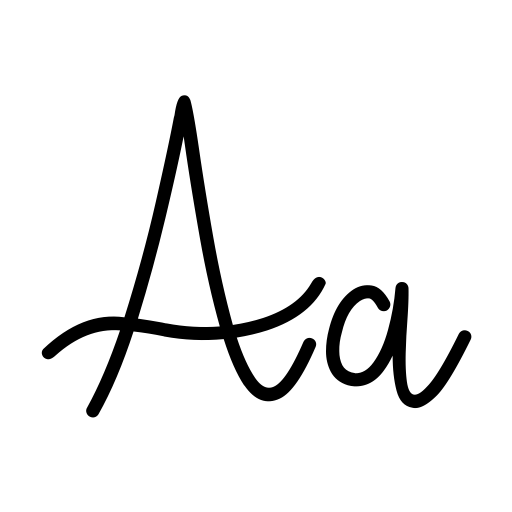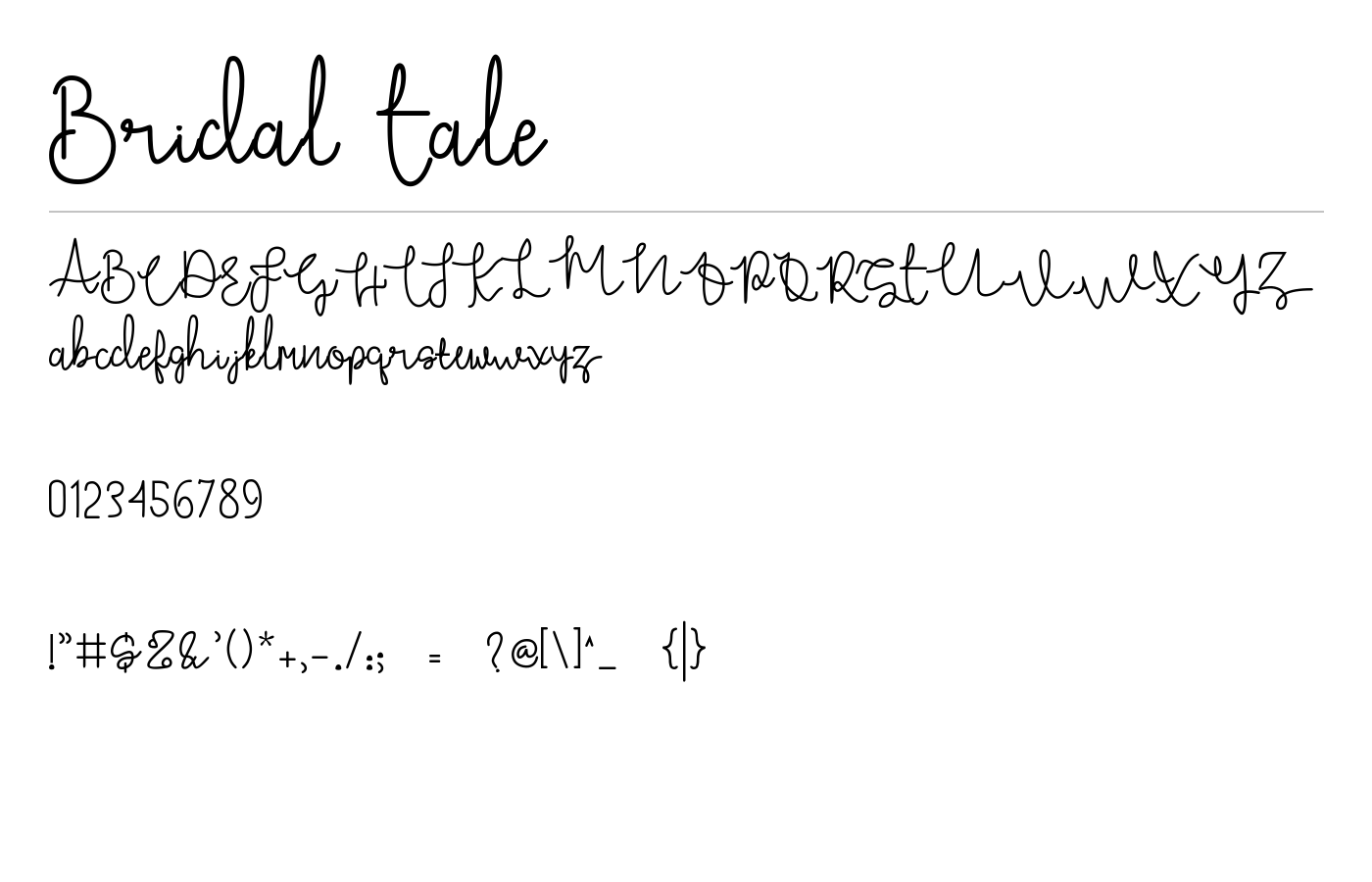
Bridal Tale is a delicate, handwritten script font with a light weight and elegant, flowing strokes that create a soft, romantic feel. Its tall x-height and narrow letterforms give it a graceful and airy appearance, making it ideal for wedding invitations, feminine branding, and heartfelt personal projects where a charming, intimate touch is desired. This font works beautifully for decorative headlines and logos that need a whimsical yet refined style.
Bridal Tale Font
About Bridal Tale Font
| Font family | Bridal Tale Font |
| Designer | Dhw Studio |